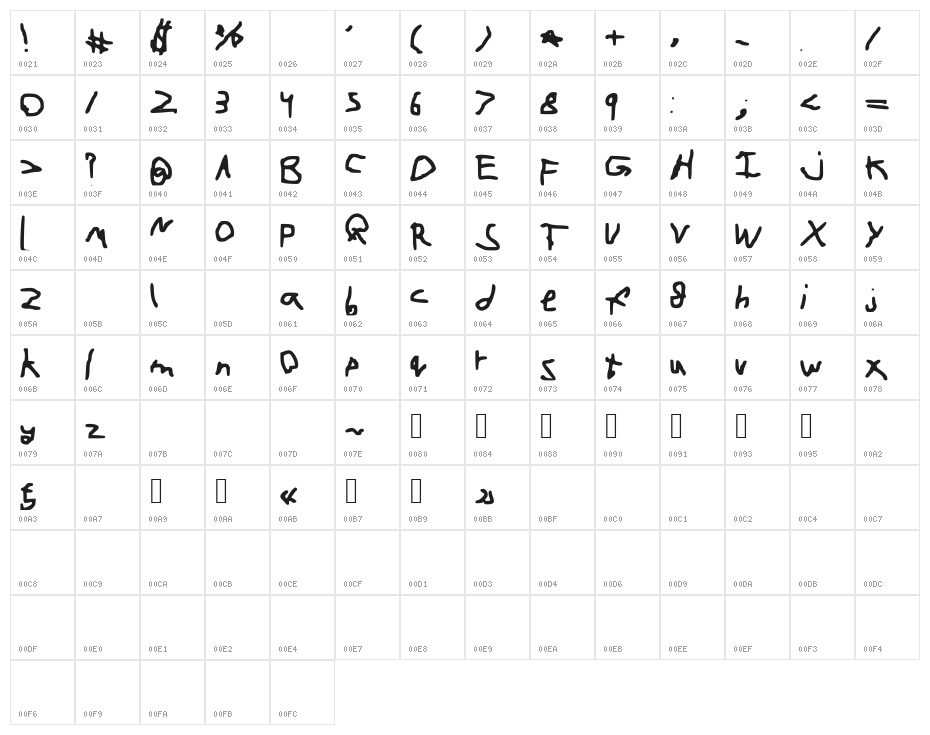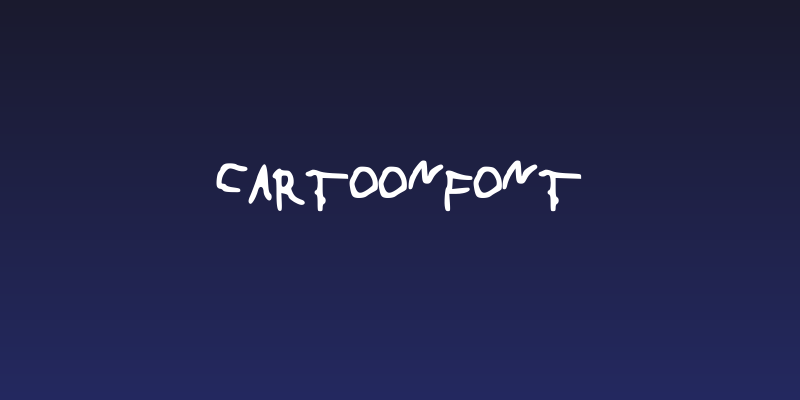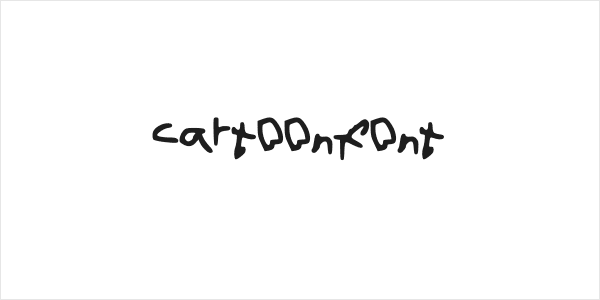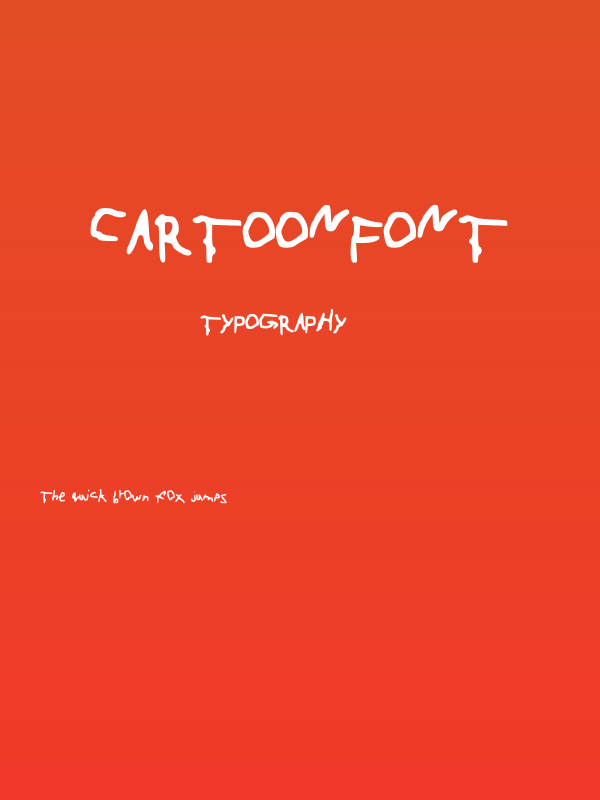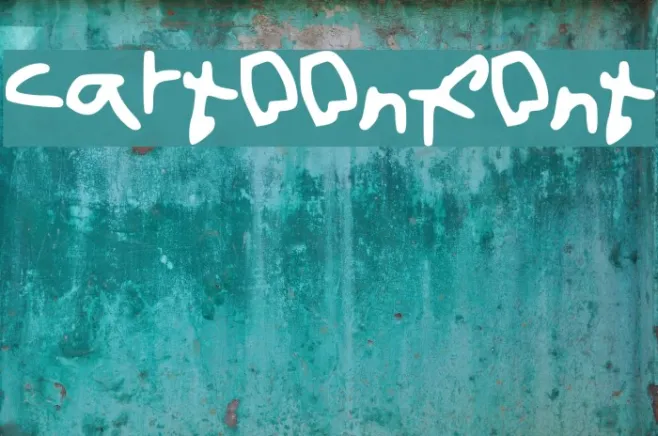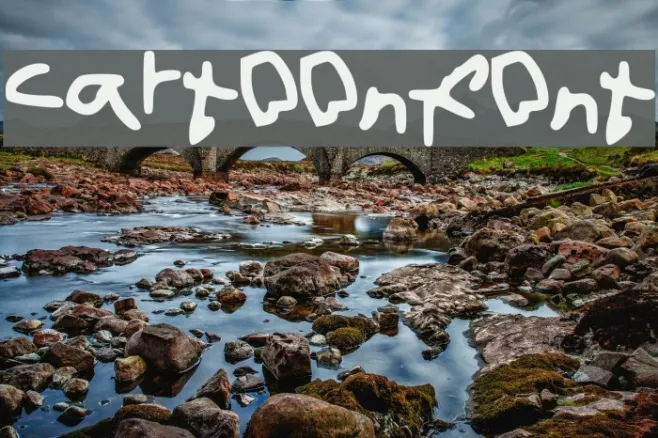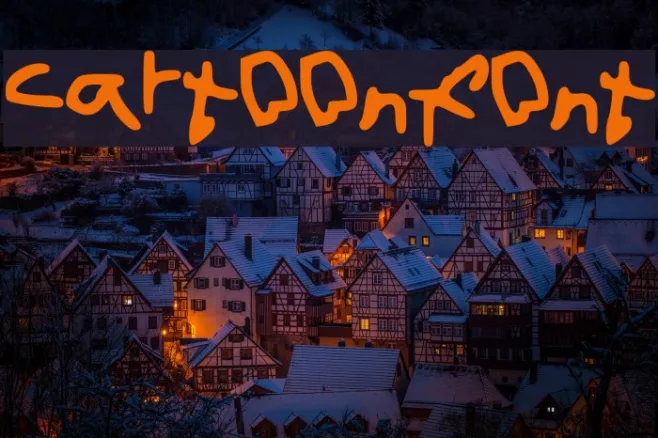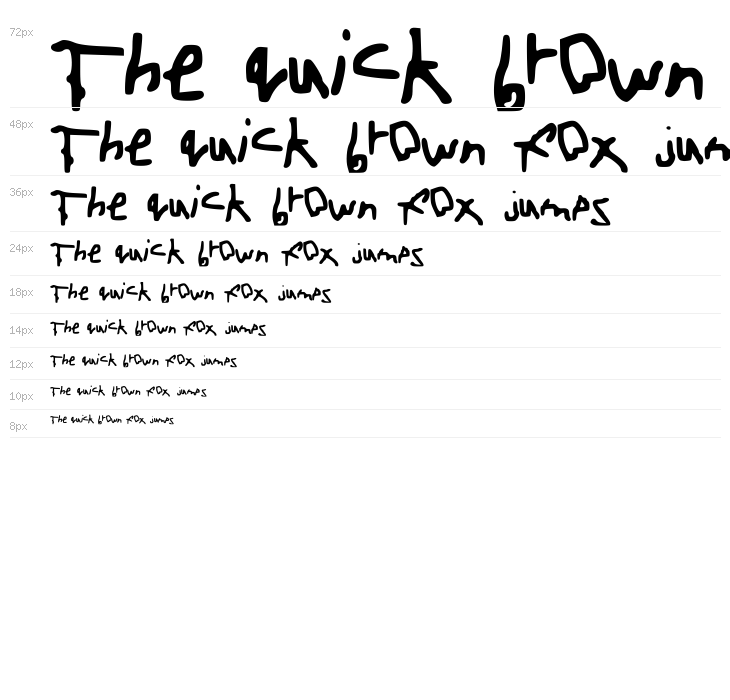
cartoonfont Font
cartoonfont Description
This playful and whimsical font features a hand-drawn style with irregular, bold strokes that give it a cartoonish and informal appearance. The characters are unevenly shaped, adding a sense of fun and spontaneity. The uppercase and lowercase letters maintain a consistent style, with exaggerated curves and loops that enhance its lively character. Numbers and special characters follow the same energetic design, making the font suitable for creative and lighthearted projects. Its unique style captures attention and conveys a sense of humor and creativity.
| Proposed Projects | Ideal for children's books, comic strips, playful branding, and creative posters. |